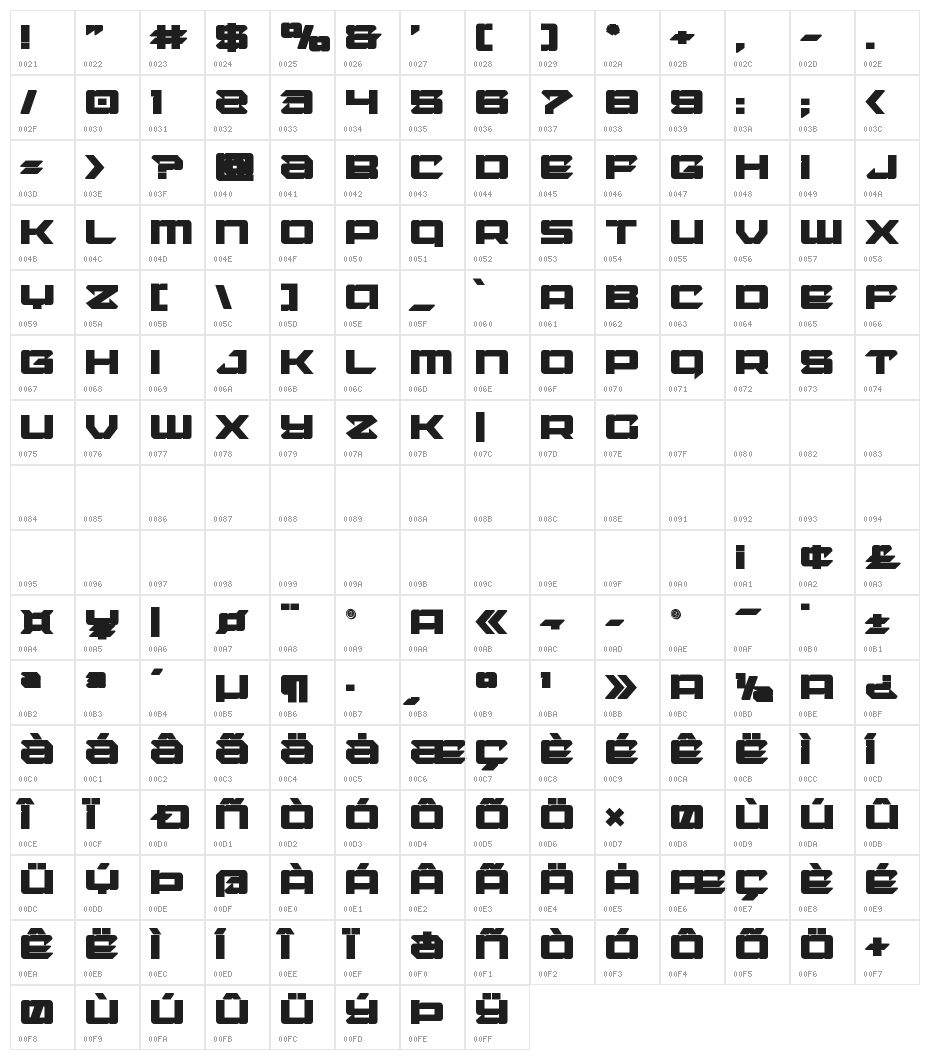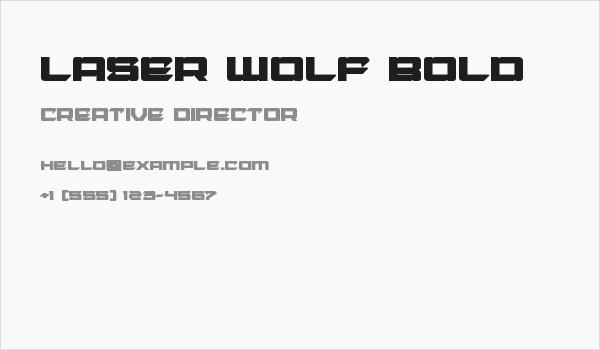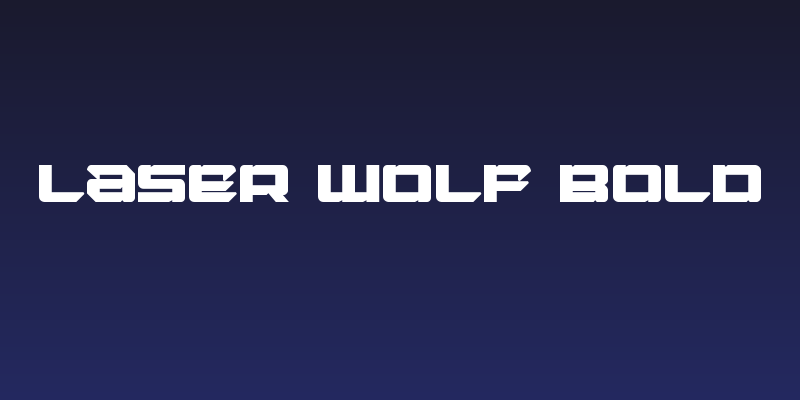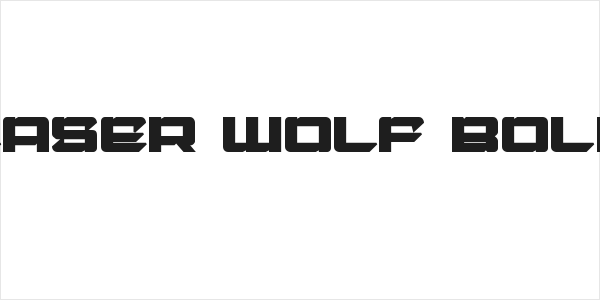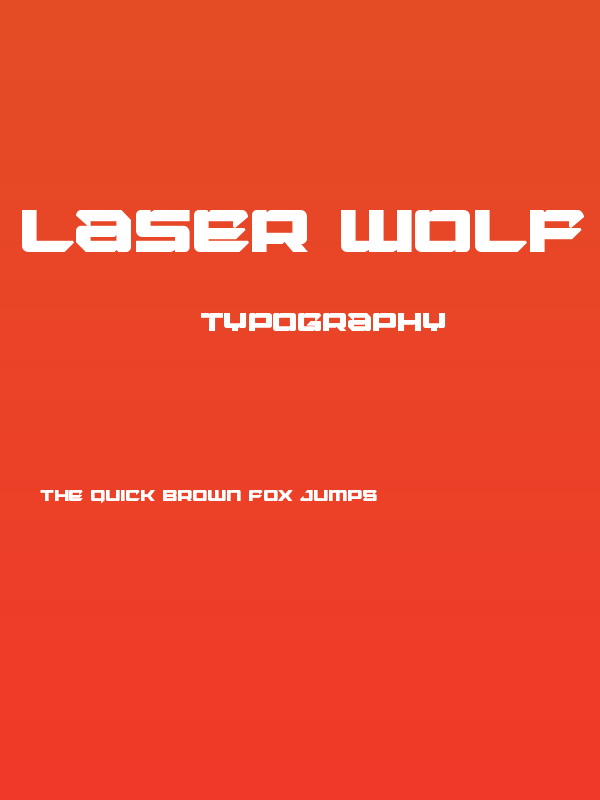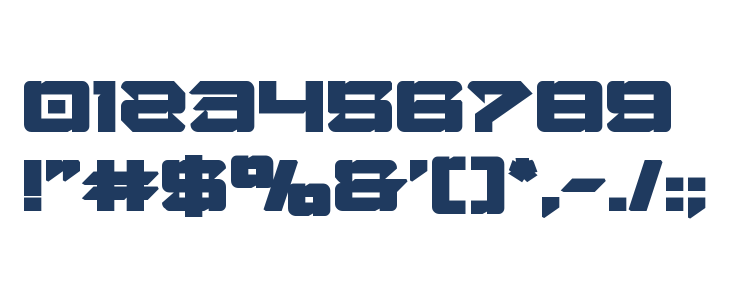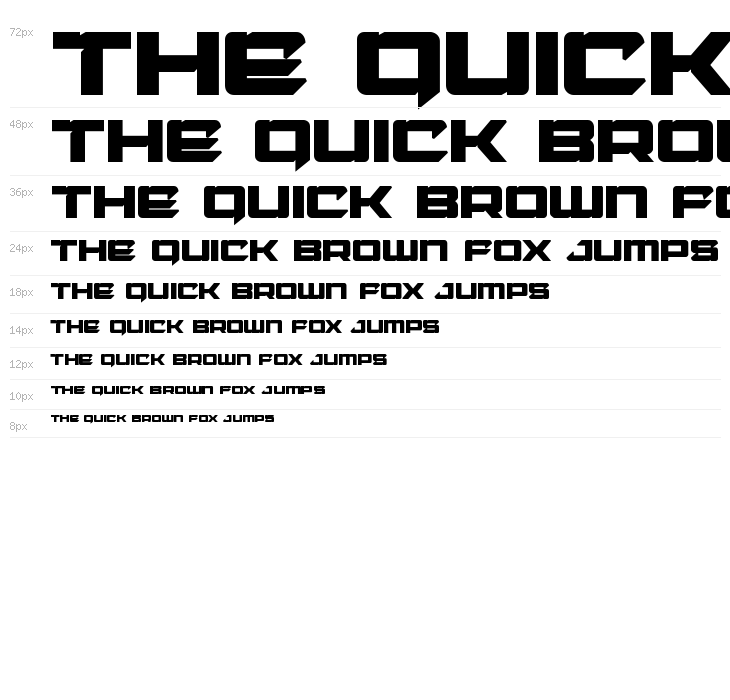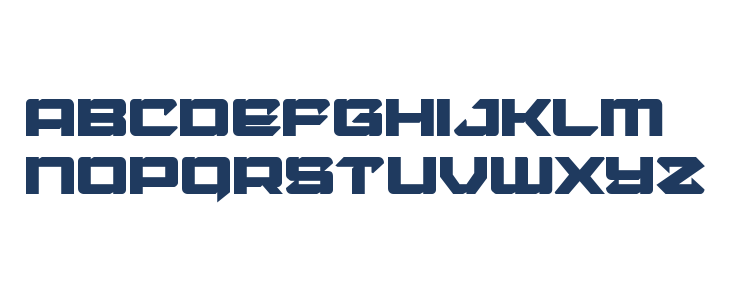
Laser Wolf Bold Font
Laser Wolf Bold Description
This font features a bold, futuristic design with sharp, angular edges and a geometric structure. The characters are uniformly wide, giving a sense of stability and strength. The uppercase and lowercase letters maintain a consistent style, with a blocky appearance that suggests a modern, tech-inspired aesthetic. The numbers and special characters follow the same design principles, ensuring a cohesive look across all glyphs. The font's boldness and unique style make it stand out, ideal for projects that require a strong visual impact.
| Proposed Projects | Ideal for technology branding, video game titles, sci-fi movie posters, and modern digital interfaces. |